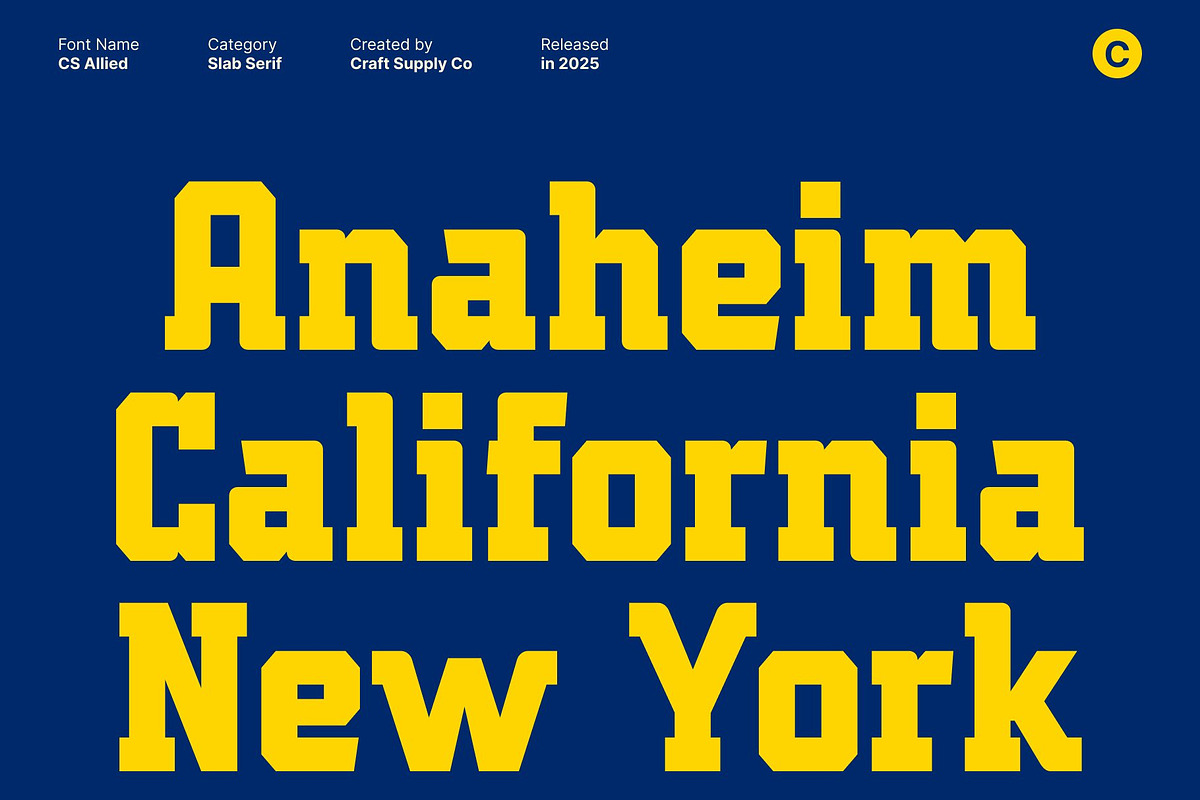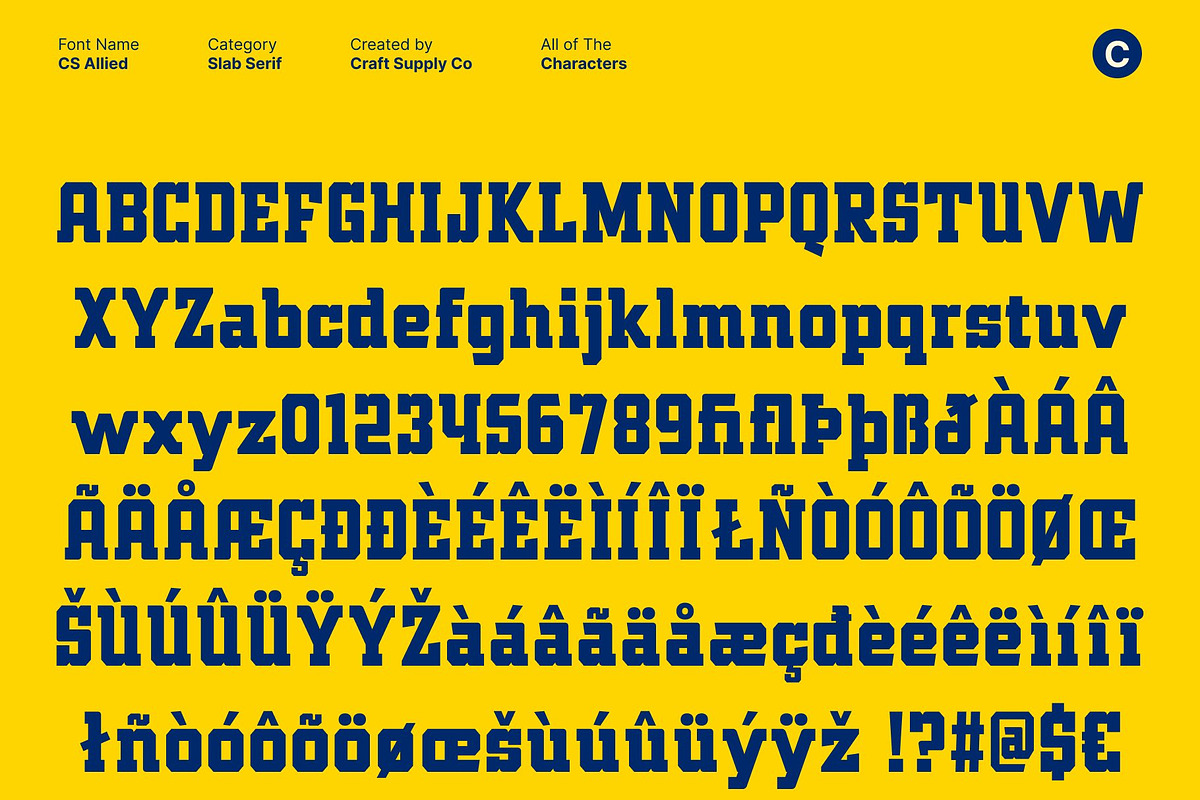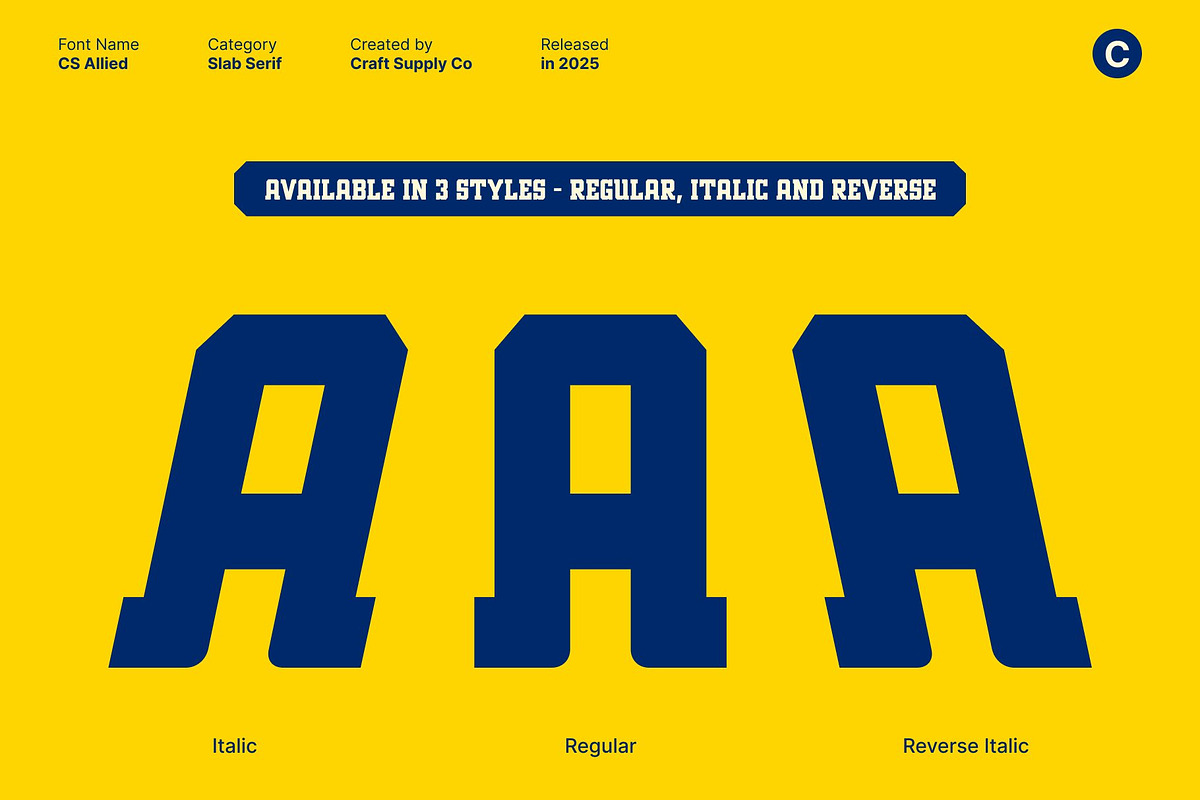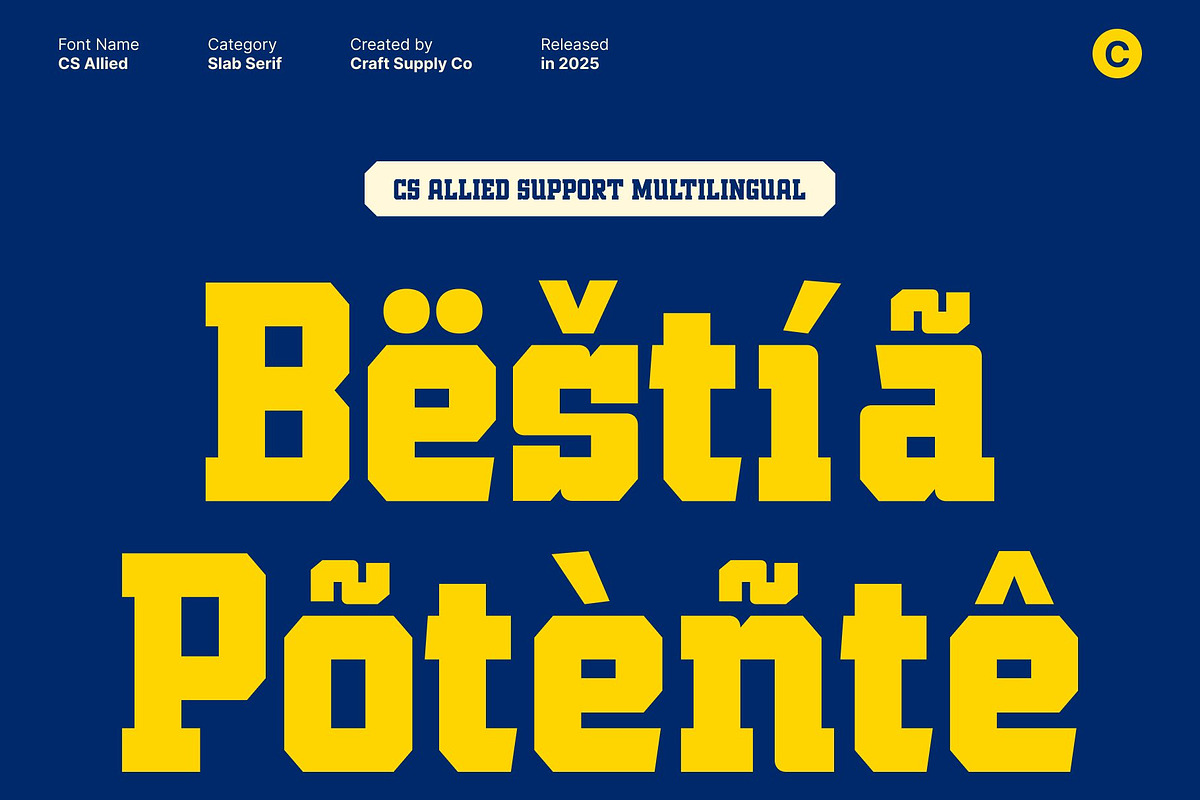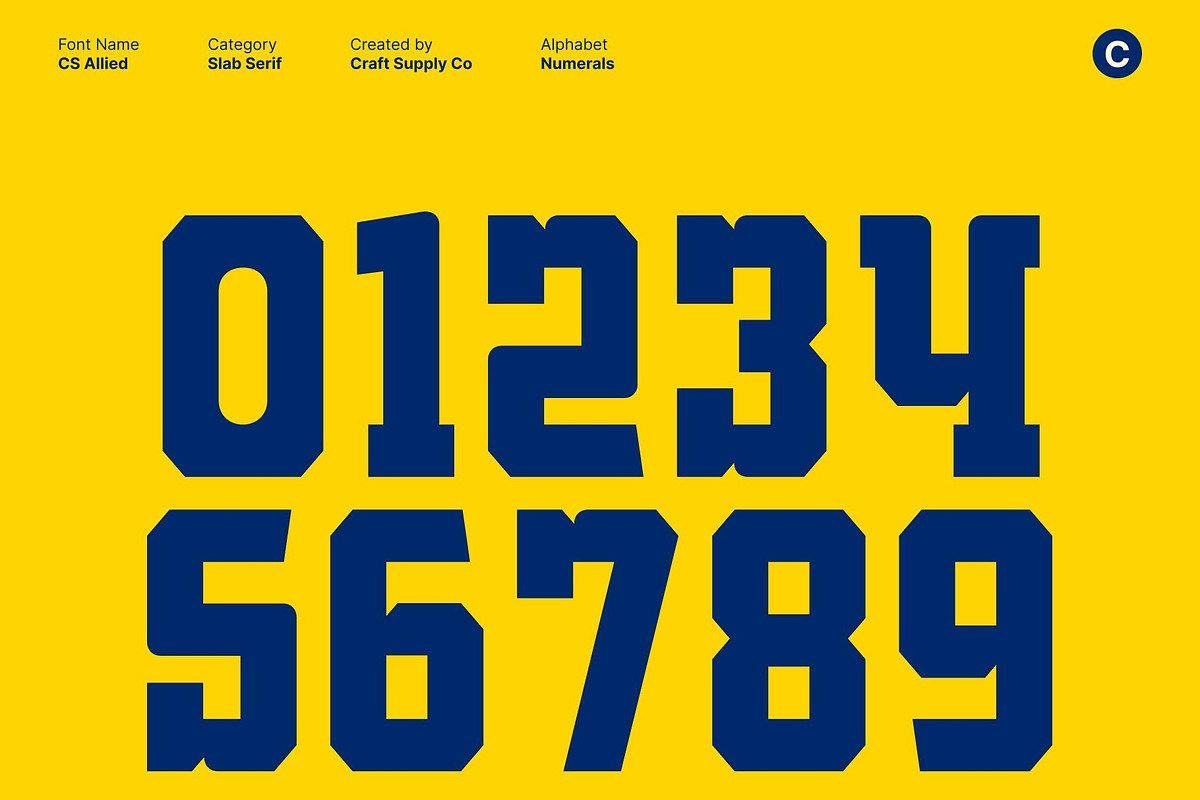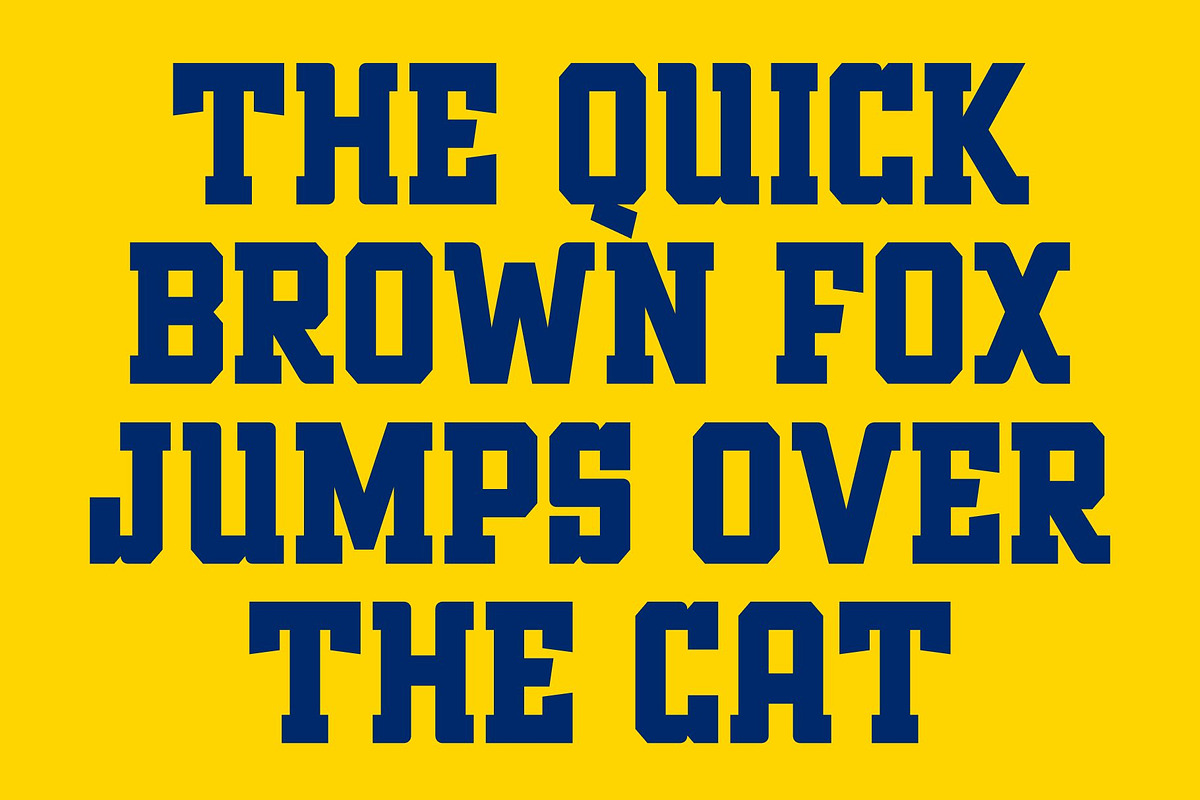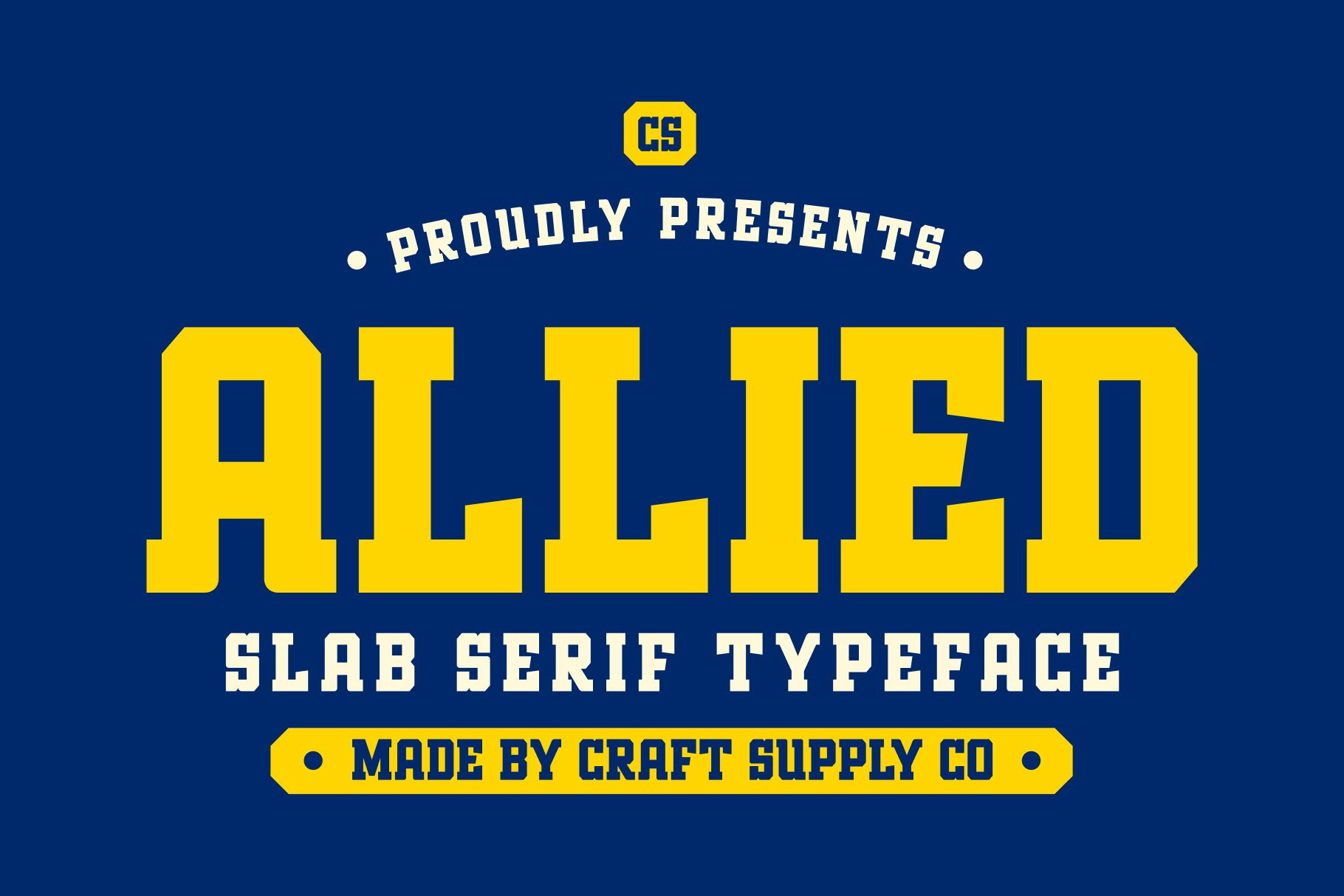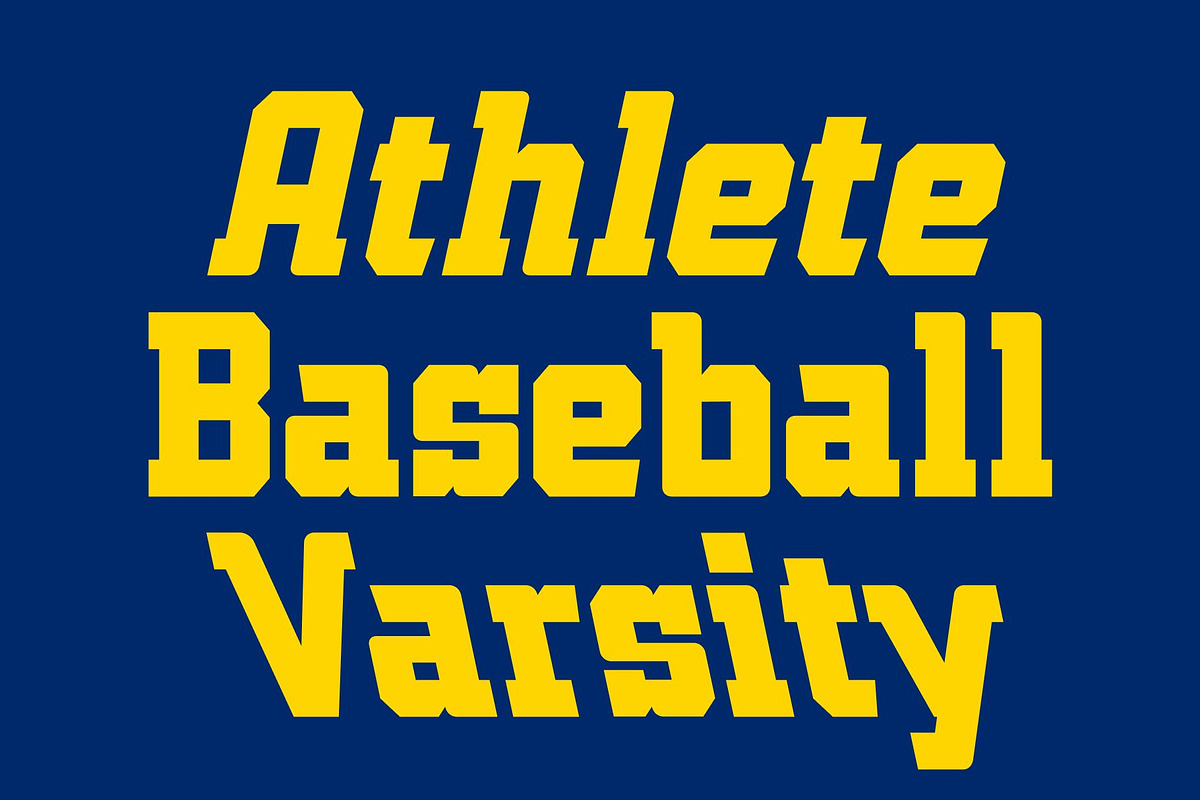
CS Allied – Sporty Font
CS Allied – Sporty Slab Serif with Bold, Assertive Energy
Strong Slab Serif Design with a Sporty, Confident Tone This is a slab serif font built to deliver power, energy, and assertiveness. Its strong serifs, bold structure, and solid presence create an athletic and competitive feel, making it an excellent choice for sports-themed designs. Every letter stands firm with a modern, commanding attitude that grabs attention instantly.
Optimized for High Visibility and Long-Distance Readability Designed for impactful display use, maintains exceptional clarity whether viewed up close or from far away. Its thick strokes and sturdy details ensure that headlines, posters, billboards, and advertisements remain highly readable at any scale.
Modern and Sturdy, Ideal for High-Impact Branding With its contemporary proportions and durable slab-serif construction, offers a sturdy and modern look that suits bold branding. It works beautifully for logos and identity systems that require confidence and competitiveness. Its assertive style allows your message to stand out with authority and strength, giving your brand an unmistakable presence.
Perfect for Sports Graphics, Promotional Materials, and Dynamic Displays This is particularly effective in sports designs, thanks to its energetic and commanding visual language. Use it for team branding, event posters, scoreboards, apparel graphics, and promotional materials to amplify intensity and excitement. With its bold impact and sporty edge, ensures every design feels powerful, dynamic, and built for action.